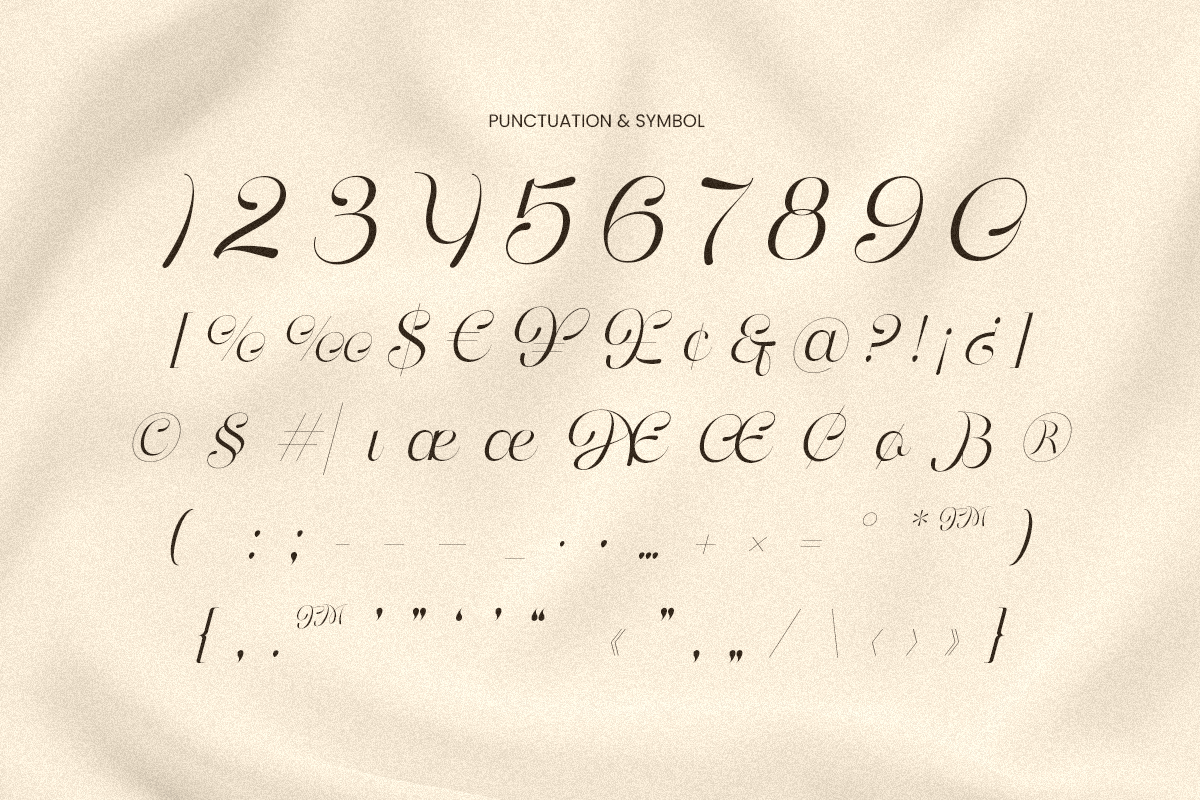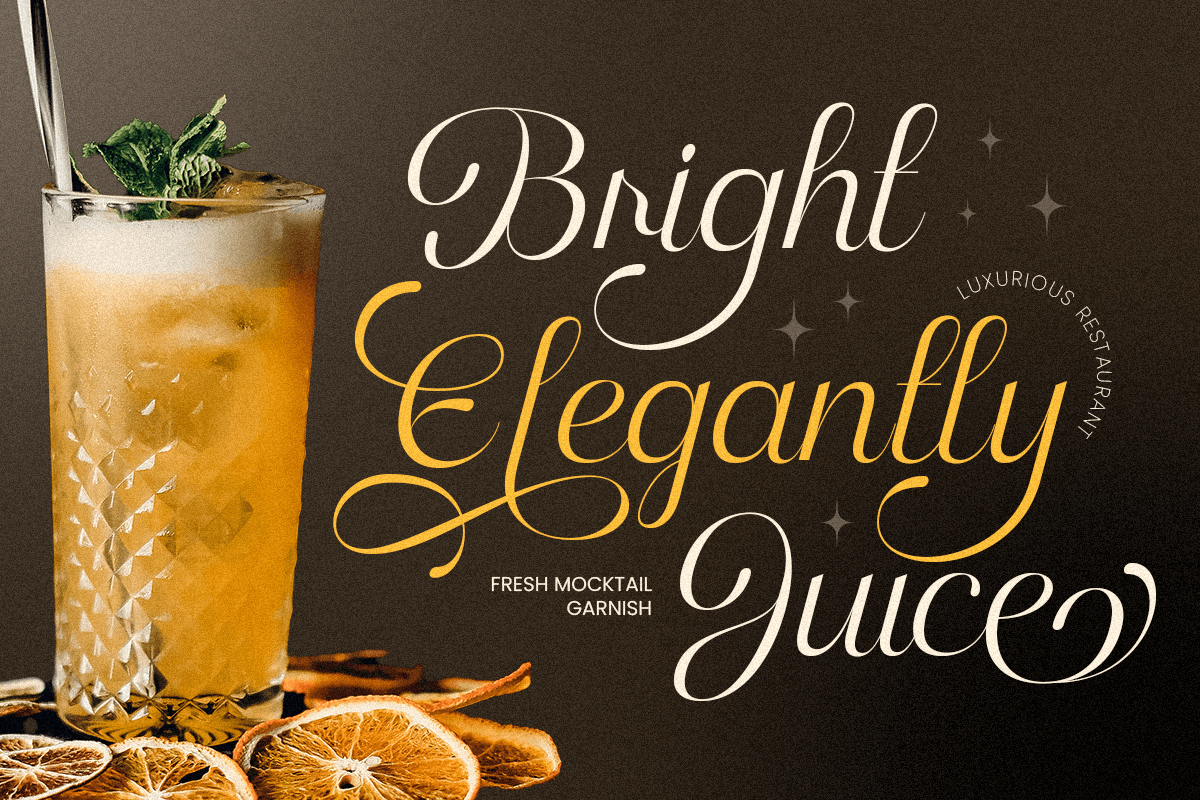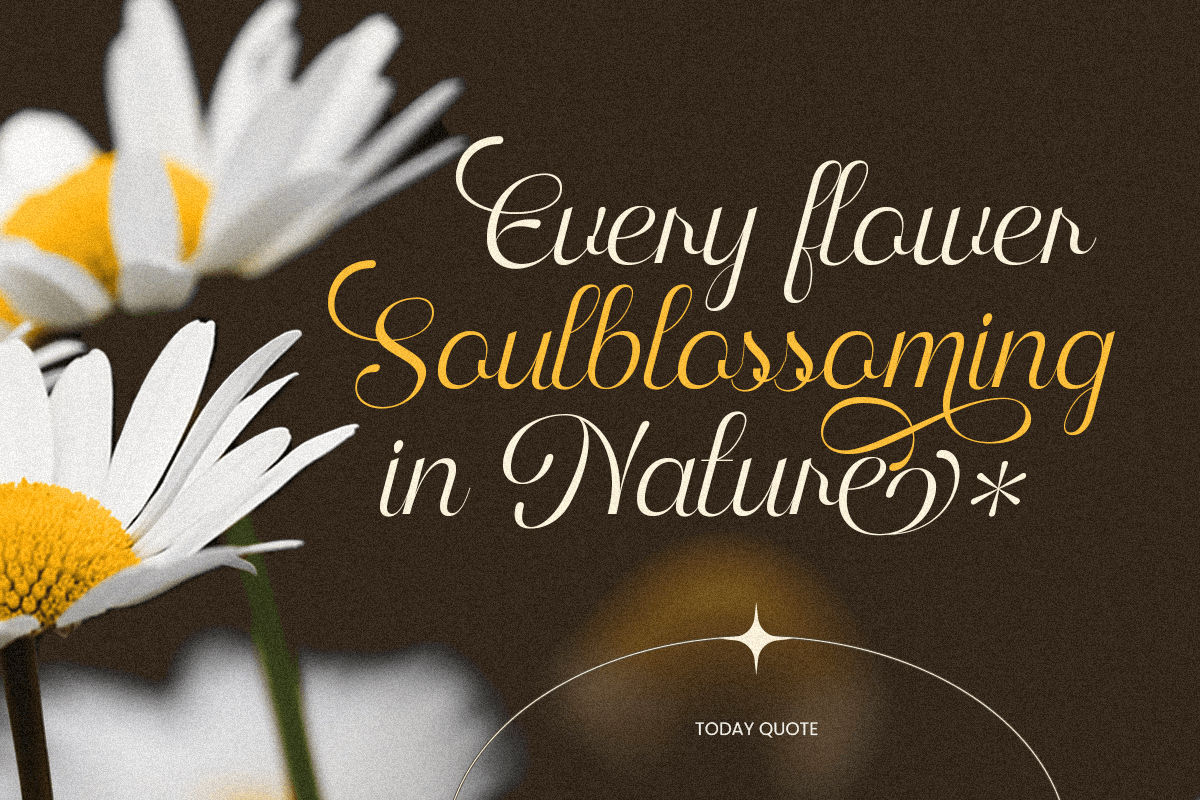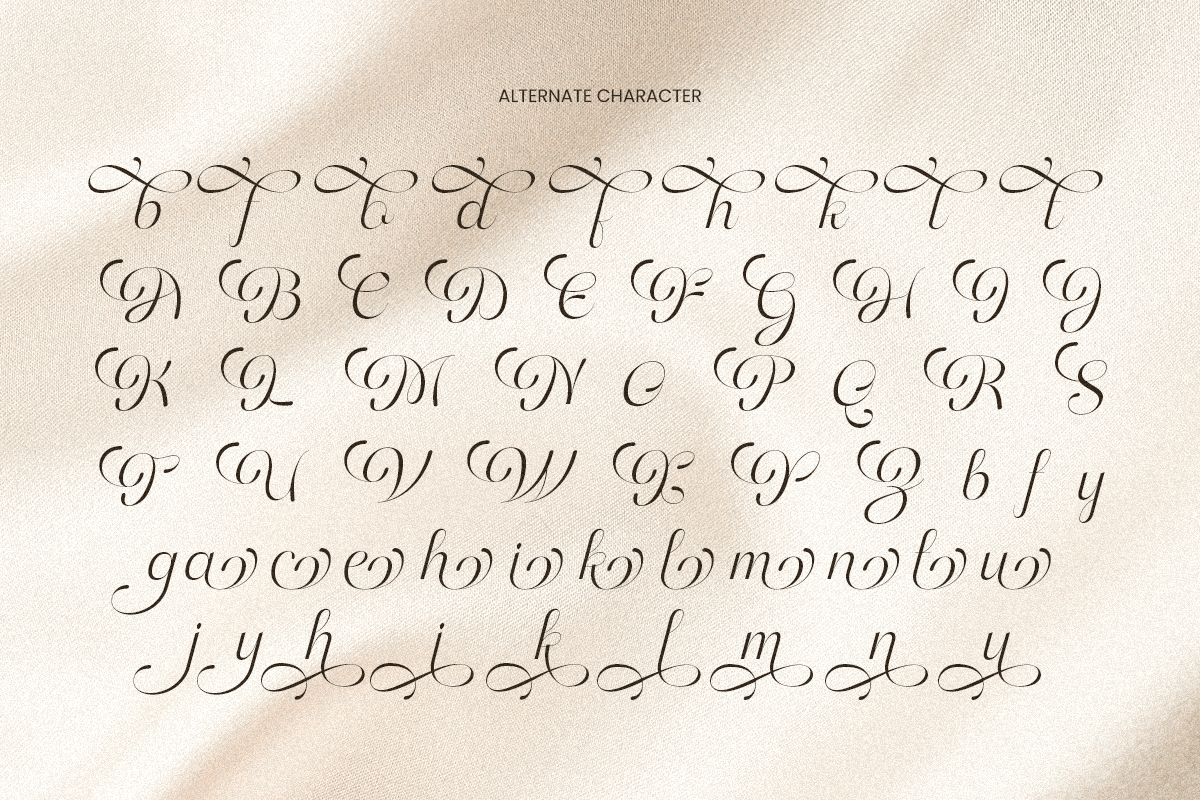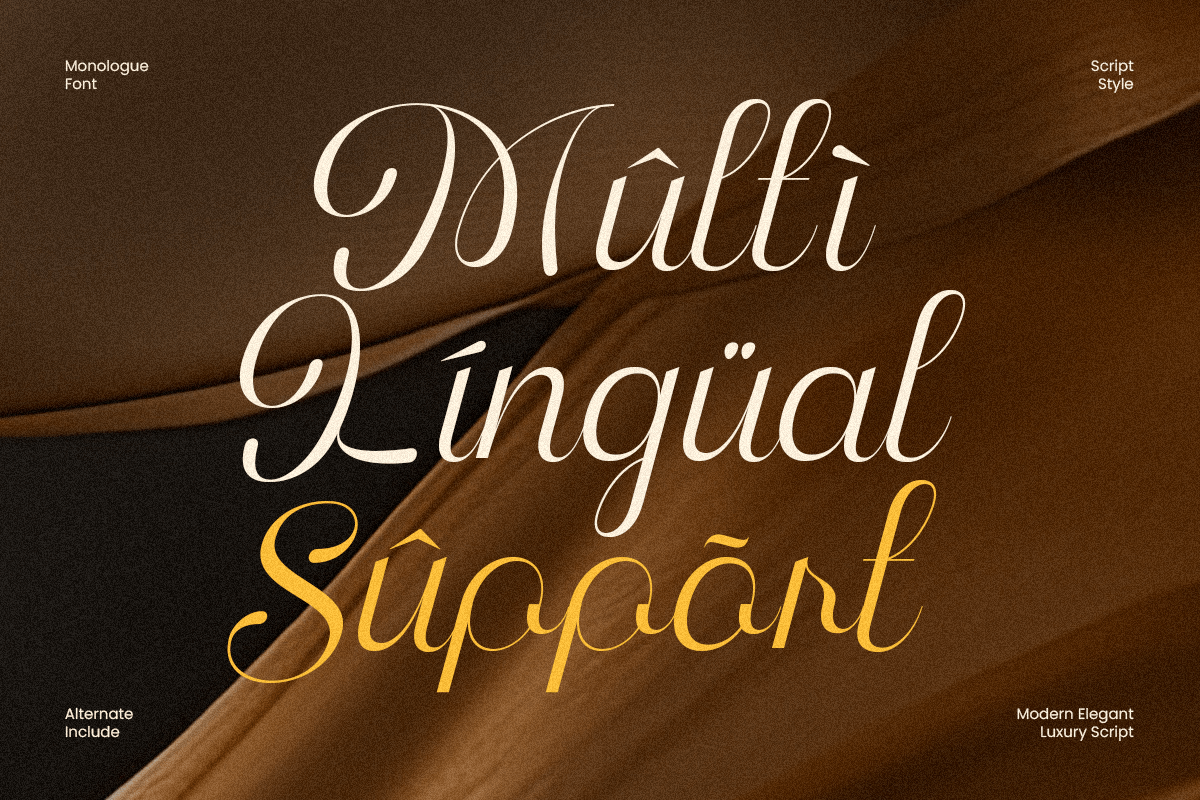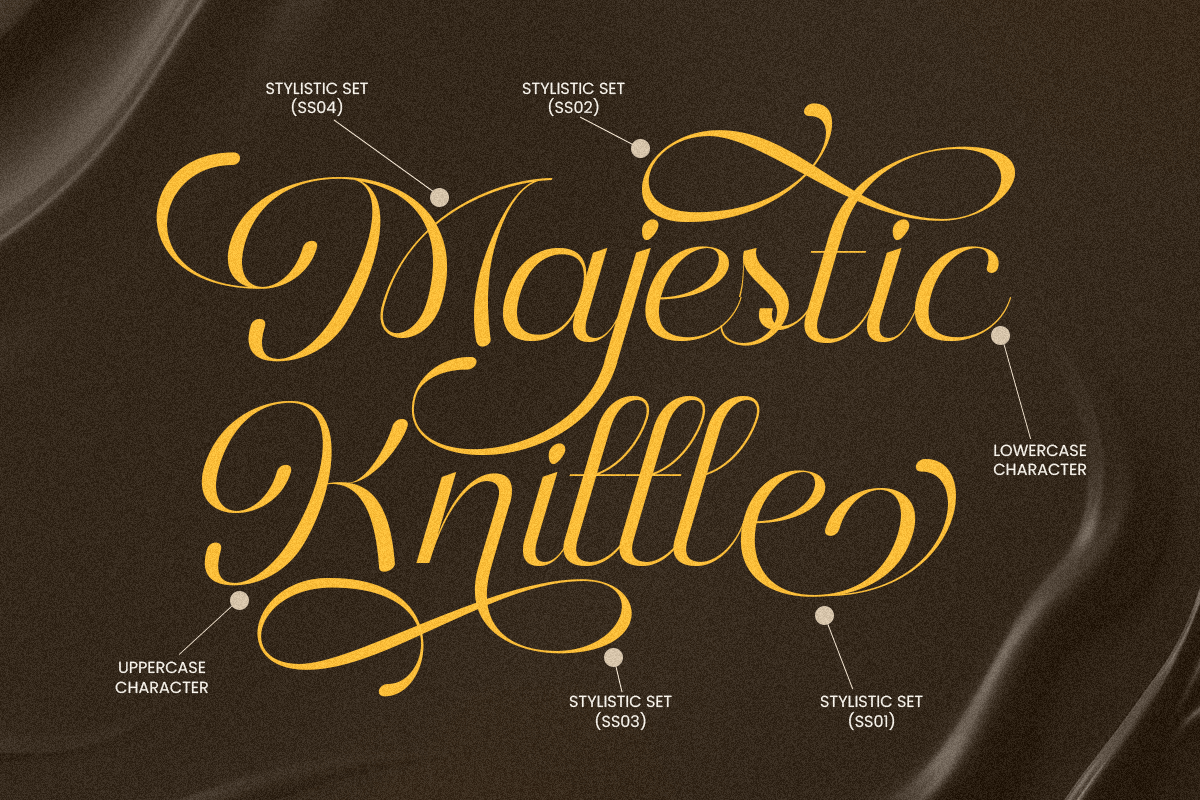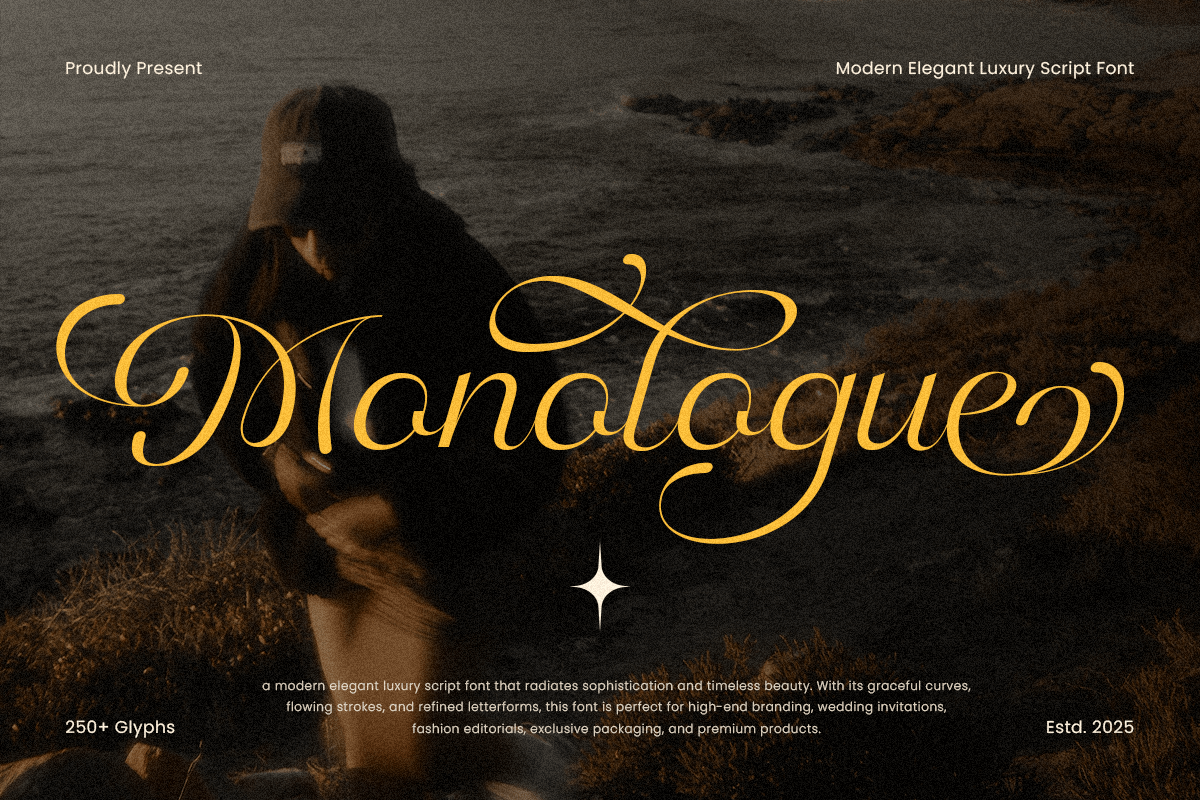
Monologue Elegant Luxury Script Font
Monologue is a modern elegant luxury script font designed to bring sophistication, softness, and refined beauty to your design projects. With smooth flowing curves, graceful loops, and a premium handwritten feel, this typeface is perfect for wedding stationery, beauty branding, product packaging, and high-end editorial layouts.
Every stroke in Monologue is crafted to look effortlessly stylish, making it ideal for logos, quotes, social media posts, and sophisticated typographic compositions. Its balanced contrast and fluid movement create a timeless aesthetic that enhances both minimal and expressive design styles.
Whether you're crafting an exclusive brand identity or designing romantic, feminine visuals, Monologue delivers a polished and luxurious script style that elevates any project.
Monologue – Modern Elegant Luxury Script Font Features
- Premium handwritten script with elegant flowing strokes
- Perfect for beauty brands, weddings, packaging, and romantic editorial work
- Smooth curves and refined details for a luxurious handwritten look
- Ideal for logos, invitations, quotes, and fashion-inspired layouts
- Uppercase, lowercase, numerals, and punctuation included
- OpenType stylistic alternates and swashes for expressive typography
Multilingual support for Afrikaans, Albanian, Asu, Basque, Bemba, Bena, Breton, Chiga, Cornish, Dutch, English, Estonian, Filipino, Finnish, Friulian, Galician, German, Gusii, Indonesian, Irish, Italian, Kabuverdianu, Kalenjin, Kinyarwanda, Luo, Luxembourgish, Luyia, Machame, Makhuwa-Meetto, Makonde, Malagasy, Manx, Morisyen, North Ndebele, Nyankole, Oromo, Portuguese, Quechua, Romansh, Rombo, Rundi, Rwa, Samburu, Sango, Sangu, Scottish Gaelic, Sena, Shambala, Shona, Soga, Somali, Spanish, Swahili, Swedish, Swiss, and more.